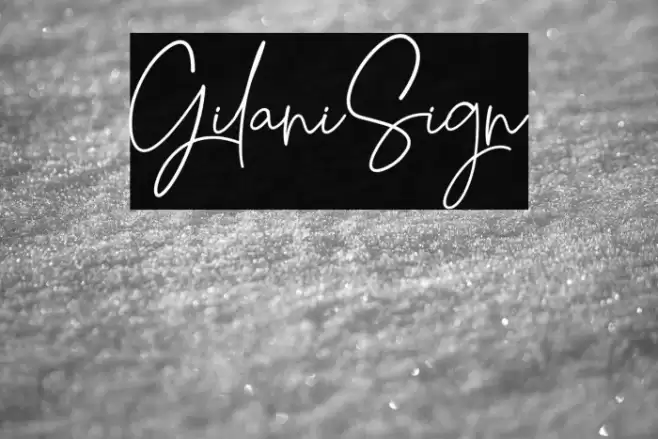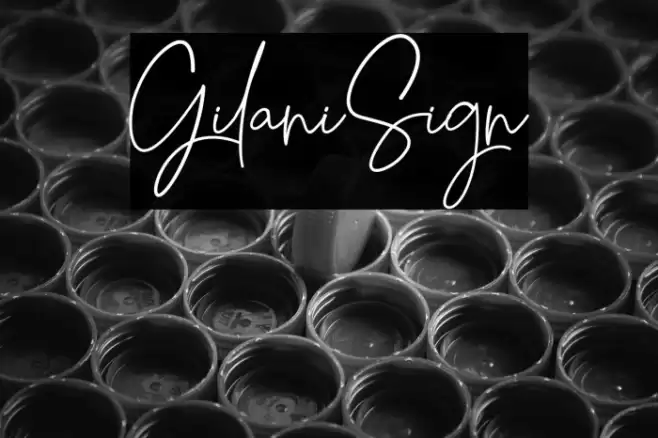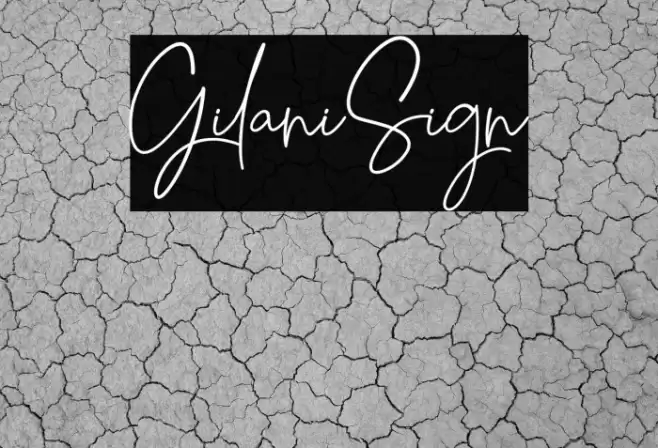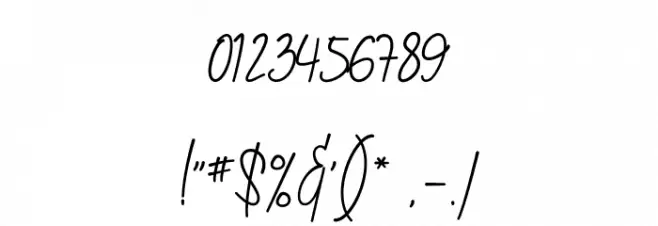
Gilani Sign Font
Gilani Sign Description
This font features a fluid, handwritten style that exudes elegance and personality. The letters are connected with smooth, flowing strokes, giving it a natural and organic appearance. The uppercase letters are tall and slightly narrow, while the lowercase letters maintain a consistent flow, enhancing readability. The numbers and special characters are crafted with the same attention to detail, ensuring a cohesive look across all text elements. This font's unique charm makes it suitable for projects that require a personal touch.
A fluid, elegant handwritten font with smooth, connected strokes from Regular fonts.
- Proposed Projects: Ideal for wedding invitations, personal branding, greeting cards, and artistic projects.
- Use Case: Logos, Invitations, Artistic projects